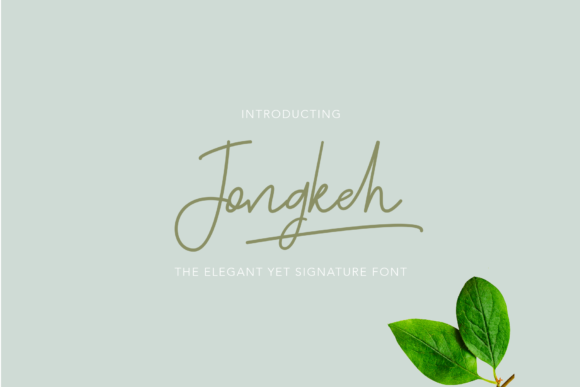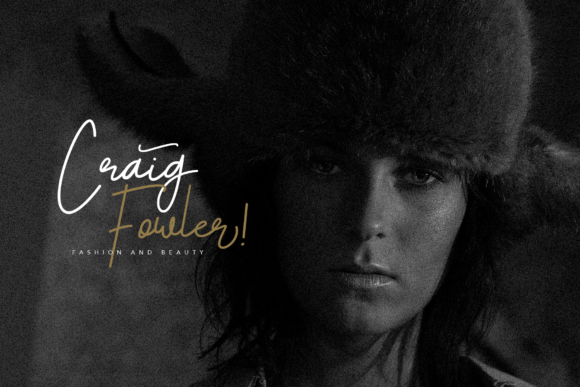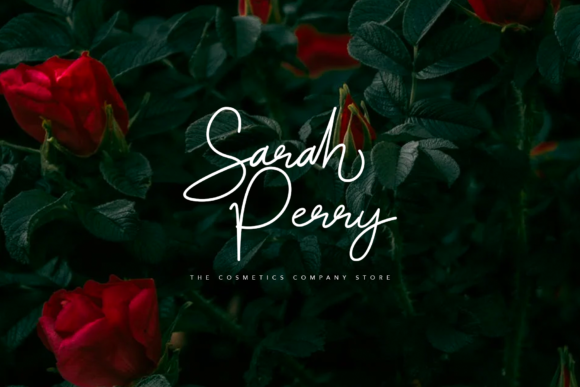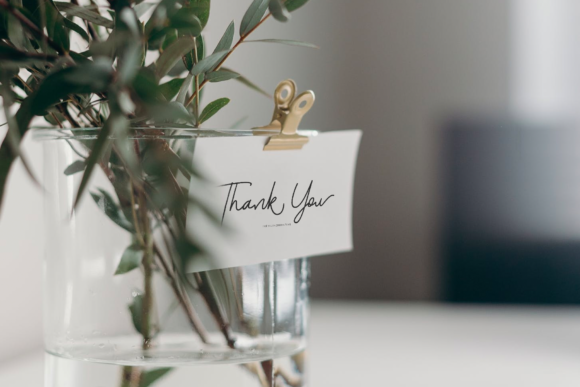
About Jongkeh Font
Jongkeh is an unique and flowing handwritten font. Its relaxed style makes it incredibly versatile and fitting to a wide variety of designs. It is PUA encoded which means you can access all of the glyphs and swashes with ease! It features a varying baseline, smooth lines, gorgeous glyphs and stunning alternates.